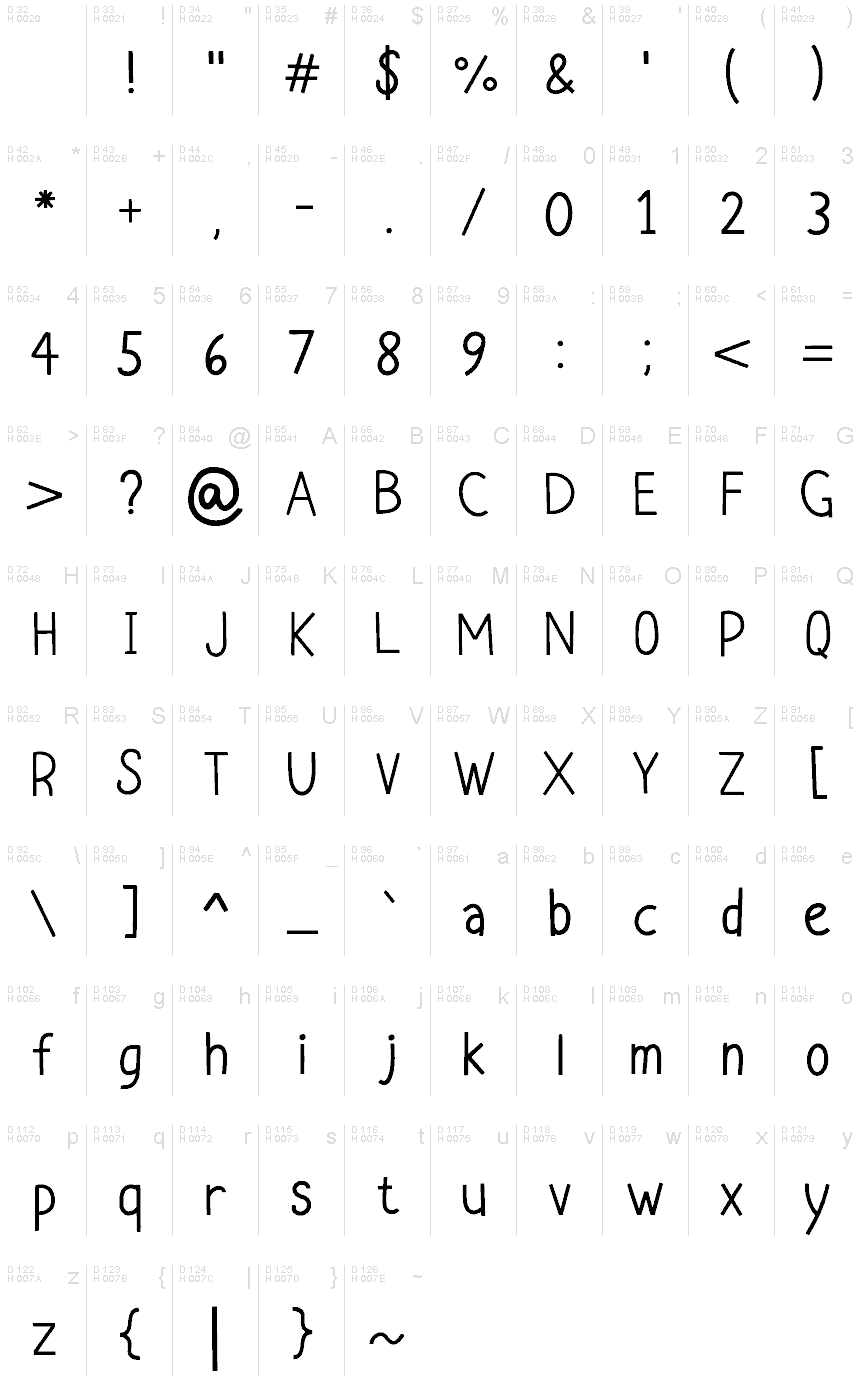
AlmostMedium
Almost font by AMD is a display typeface that takes a quirky, slightly irregular style which is just enough to captivate without going over-the-top. Friendly and casual, the characters are constructed in a modern fashion with consistent ascender height and cap height. While all lowercase letters are visible in the preview when writing within these lines, this resource actually features numbers as well.